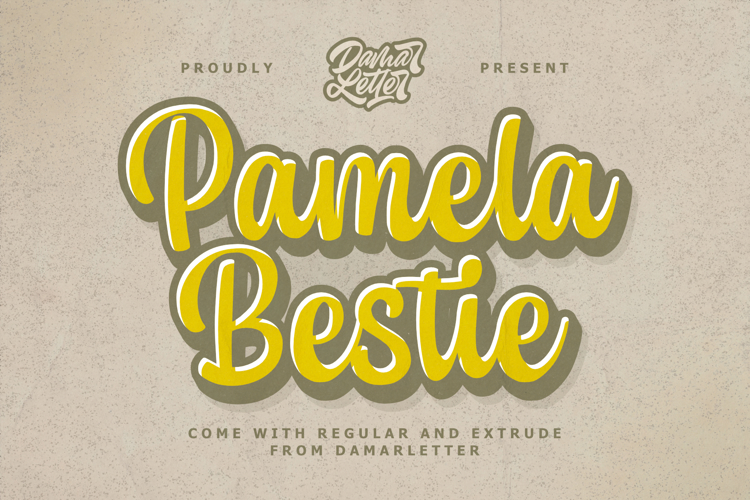
Pamela Bestie Font
About Pamela Bestie Font
Pamela Bestie is a fun and playful layered font that's perfect for adding some personality to your designs. This font comes in two styles: regular and extrude. The regular style features a smooth, clean design that's easy to read and works well for headlines and body text. The extrude style has a dimensional, layered look that adds depth and texture to your designs.
Both styles of Pamela Bestie feature a hand-drawn feel with slightly irregular letterforms, giving the font a charming and quirky personality. The font includes a full set of uppercase and lowercase letters, as well as numerals and punctuation.
Overall, Pamela Bestie is a versatile font that's great for a variety of design projects, from branding and packaging to social media graphics and more. Whether you use it alone or layered with the extrude style, this font is sure to add some fun and whimsy to your designs.